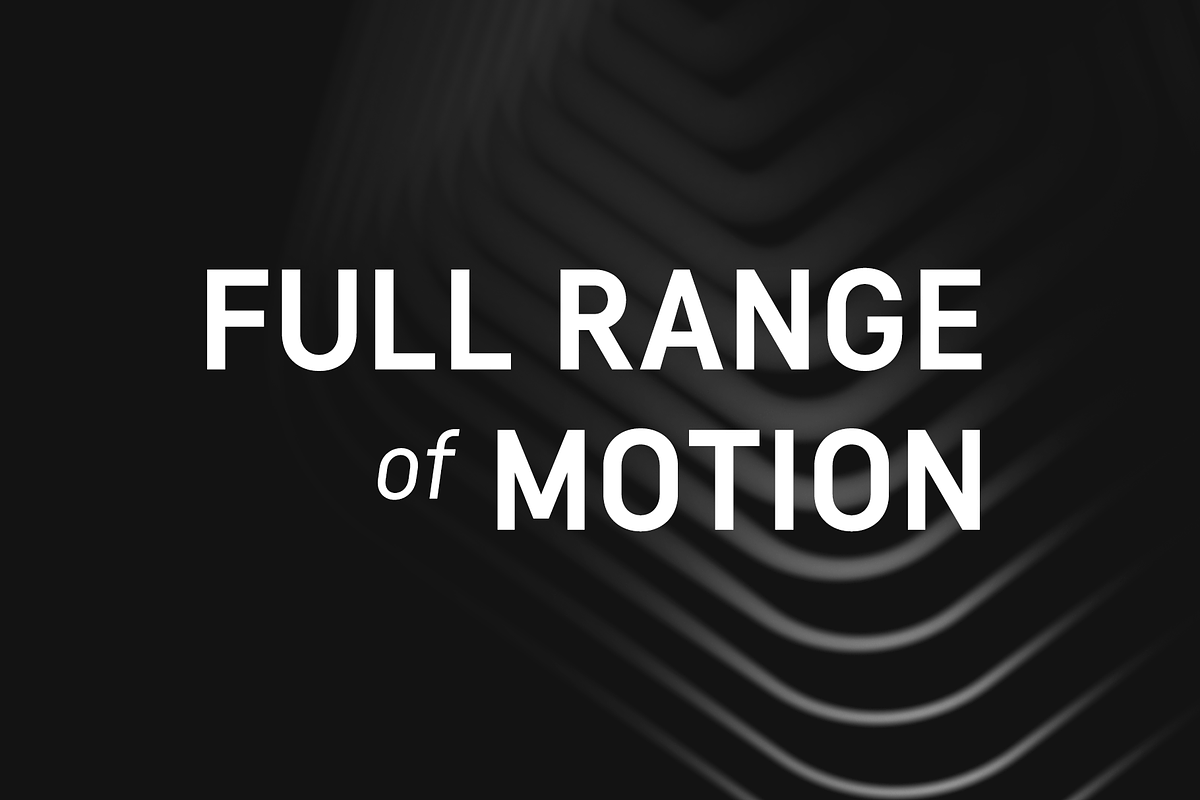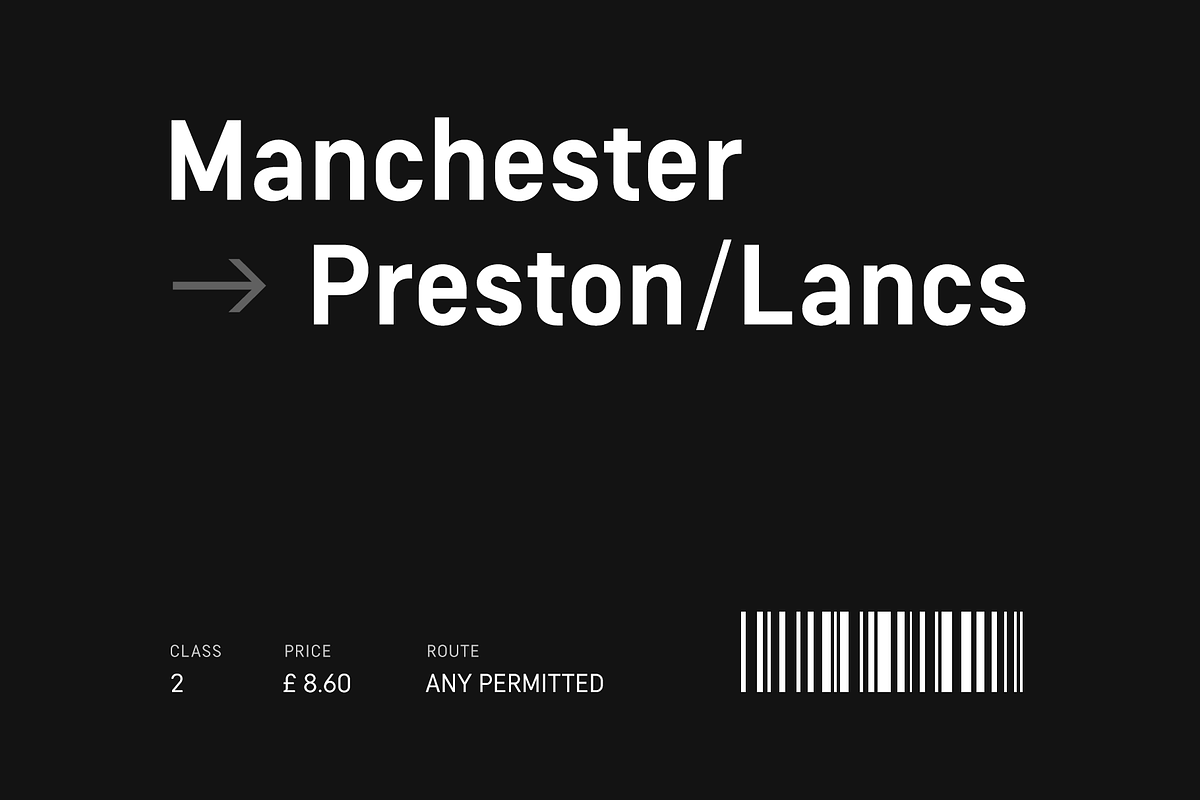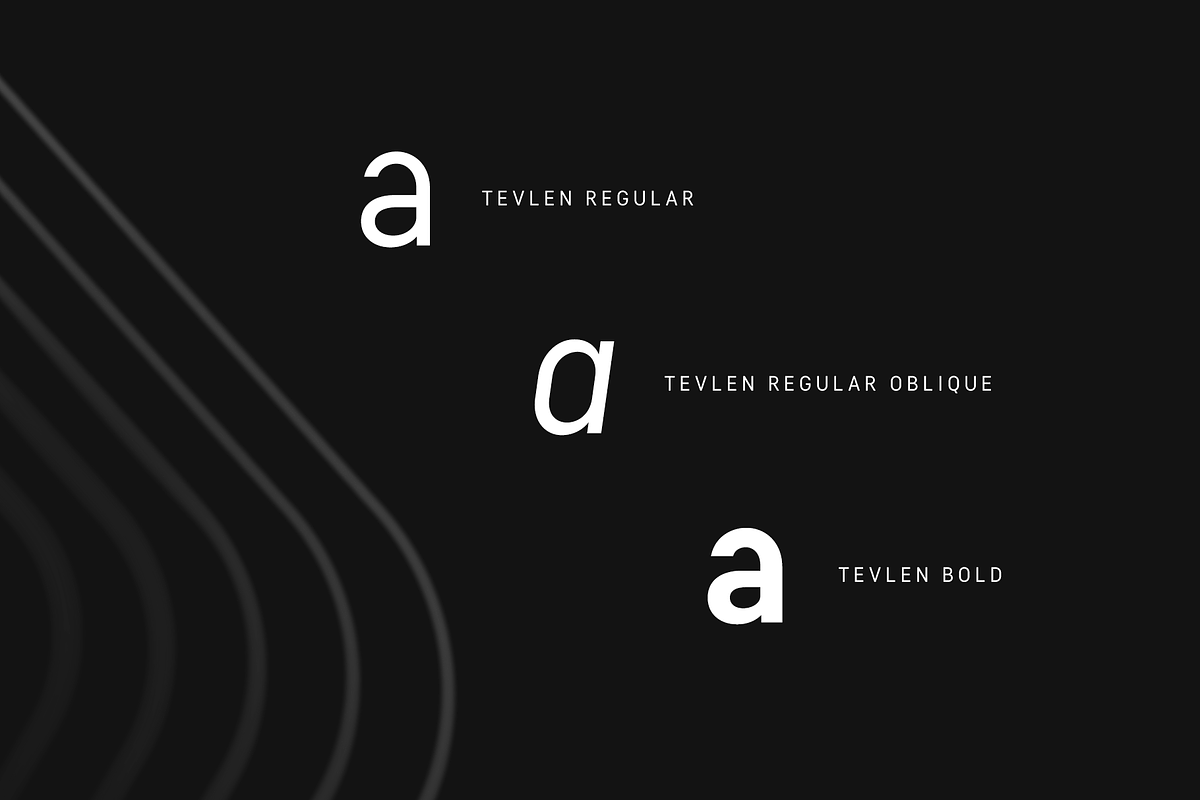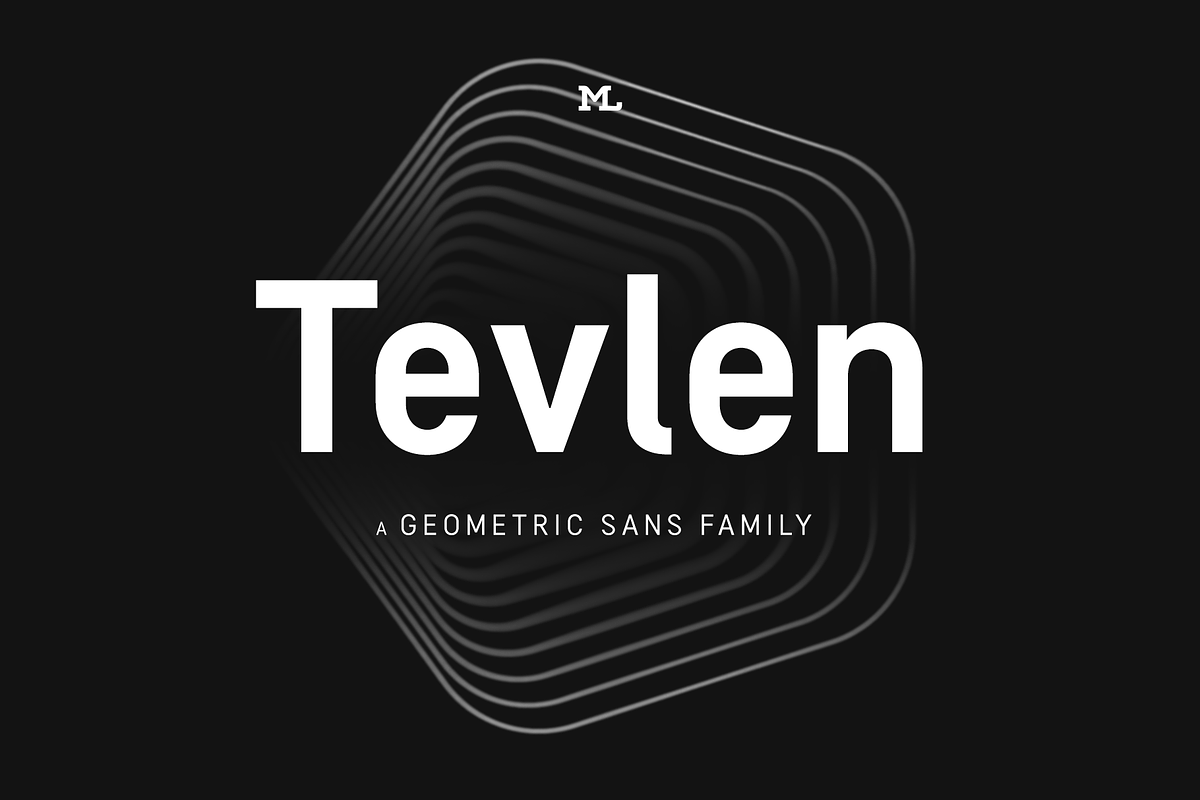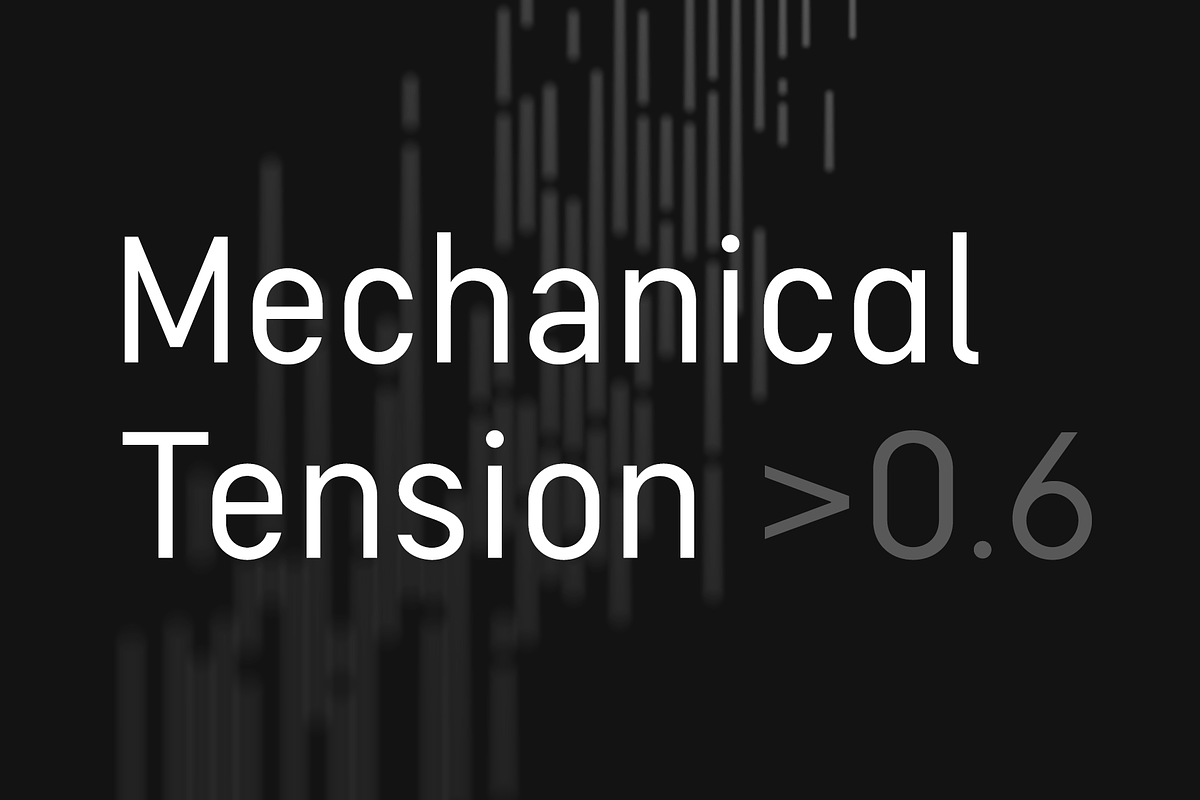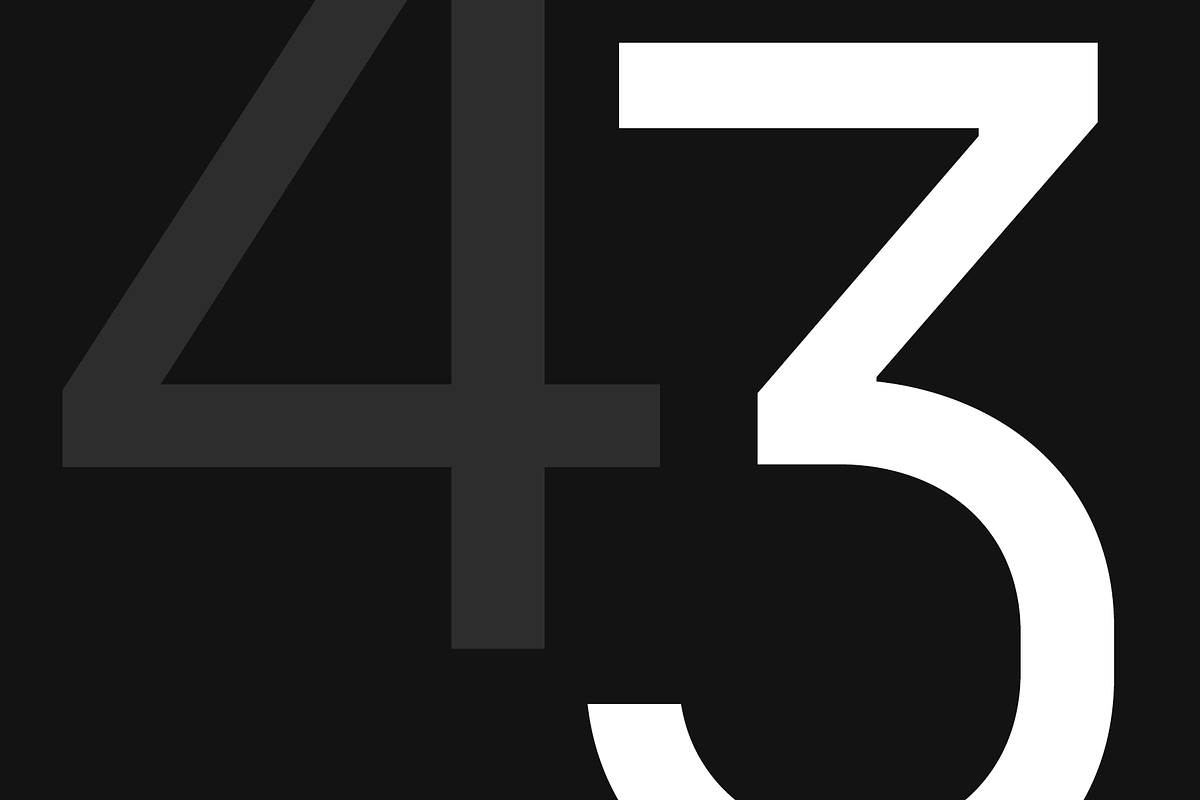
Tevlen – Geometric Sans Family
Meet Tevlen, a versatile workhorse family for both texts and headlines based on a geometric and straight-lined design. It will give your apps, websites, logos, posters and so much more a techy and masculine look and feel. However, some friendly rounded details, such as the i-dot, add a pleasant personality to this family.
With more than 200 languages covered, many opentype features on board, obliques, and weights ranging from Thin to Black, Tevlen is a truly versatile companion for your next design project.